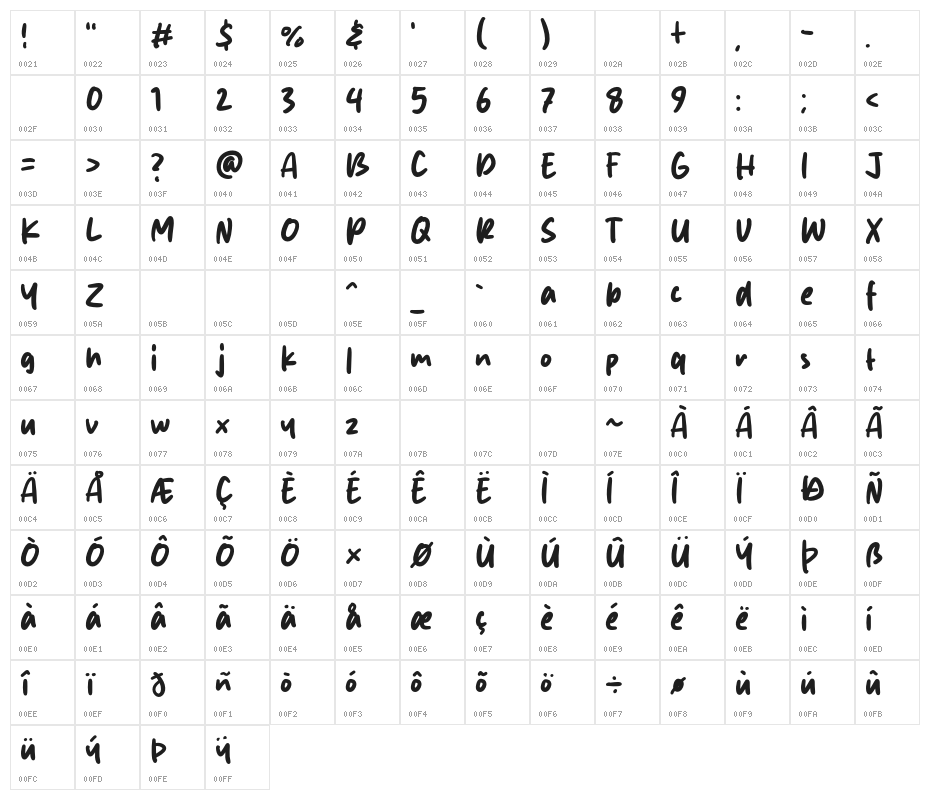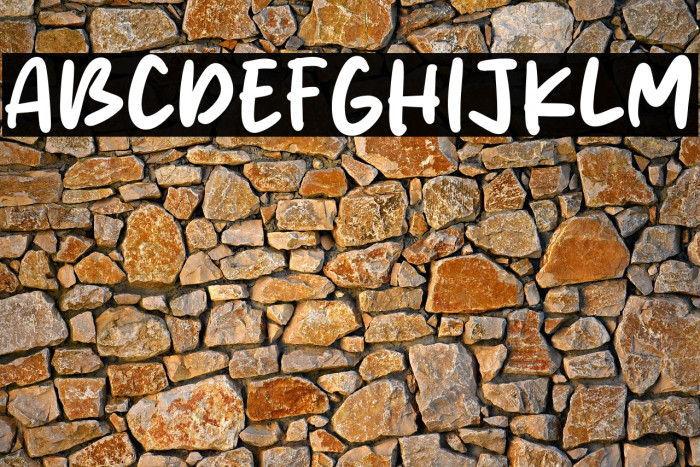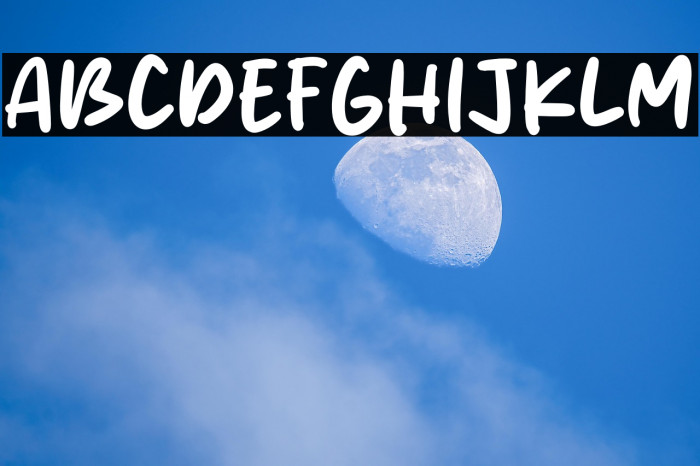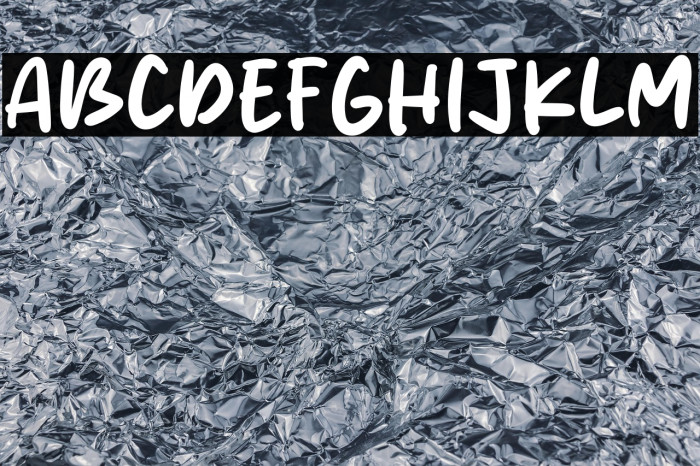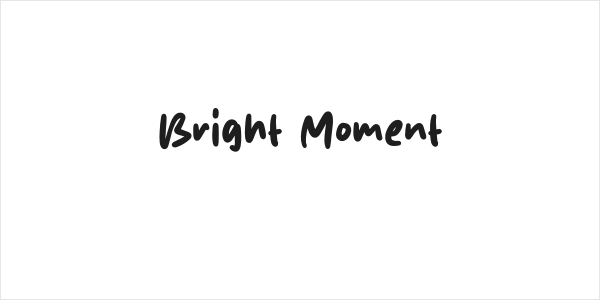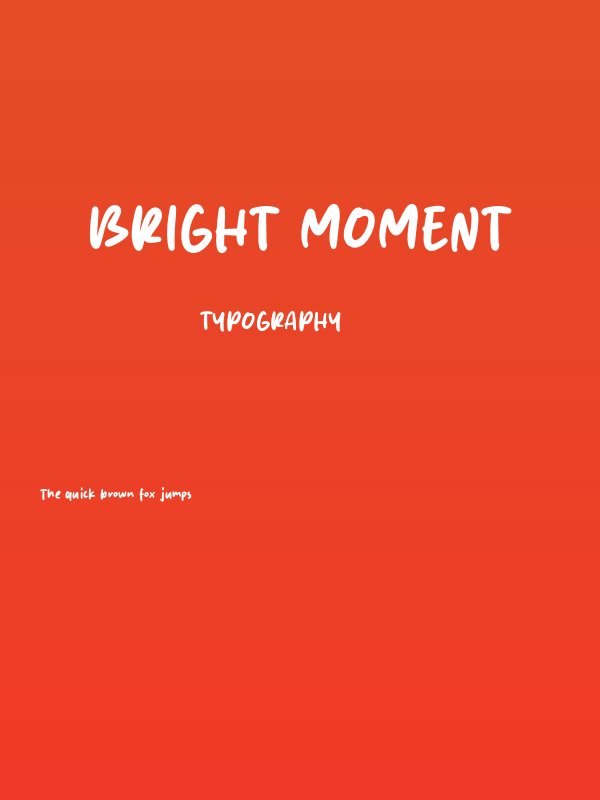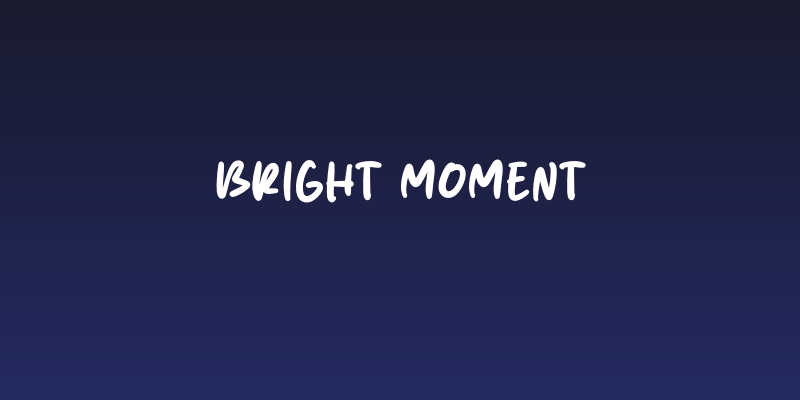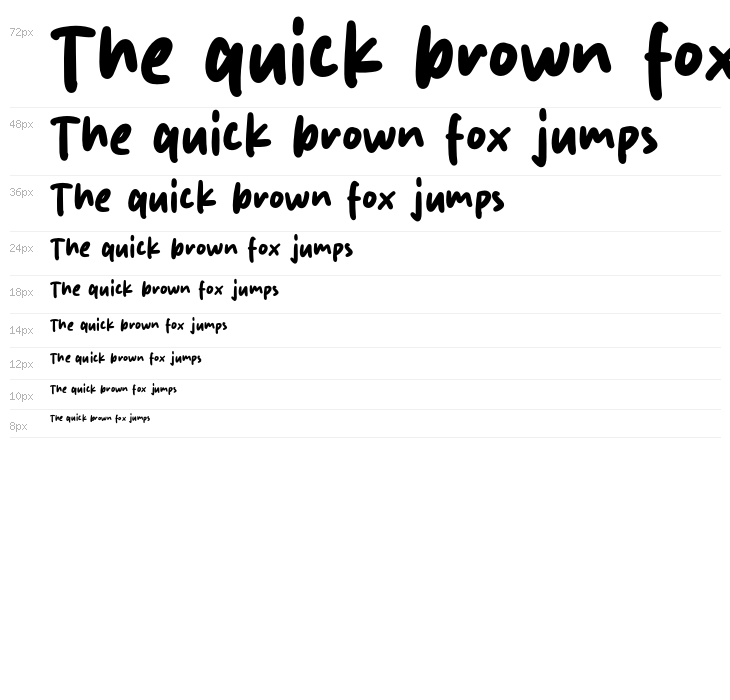
Bright Moment Font
Bright Moment Description
This font exudes a playful and energetic vibe with its bold, handwritten style. The characters are slightly irregular, giving it a personal and informal touch. The strokes are thick and consistent, creating a strong visual impact. The uppercase and lowercase letters maintain a cohesive look, while the numerals and special characters blend seamlessly with the overall design. Its casual and approachable appearance makes it suitable for projects that require a friendly and engaging tone.
| Use Case | Logos, Headlines, Informal Text |
| Proposed Projects | Ideal for greeting cards, social media graphics, children's books, and casual branding. |